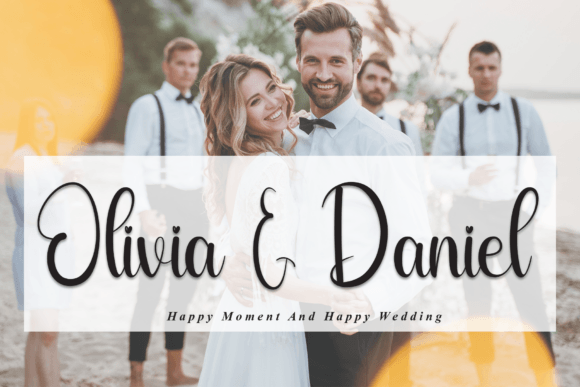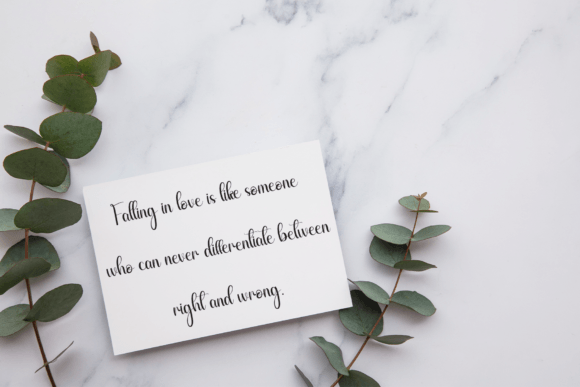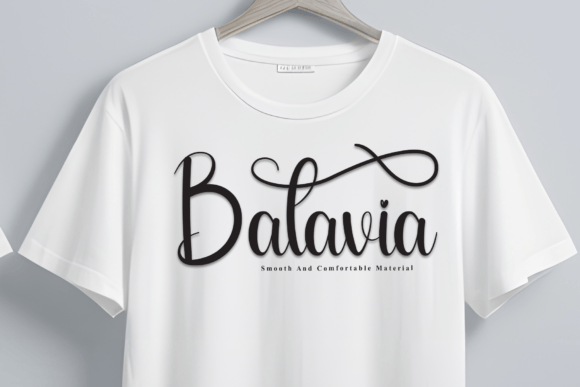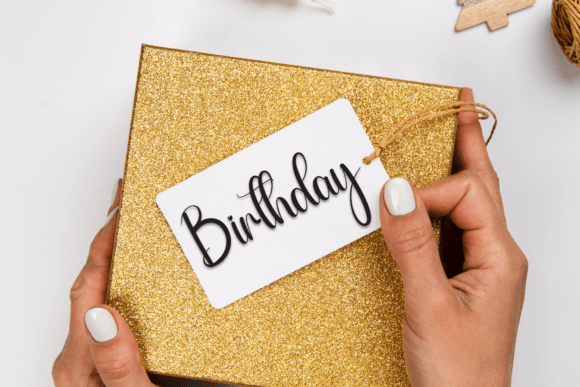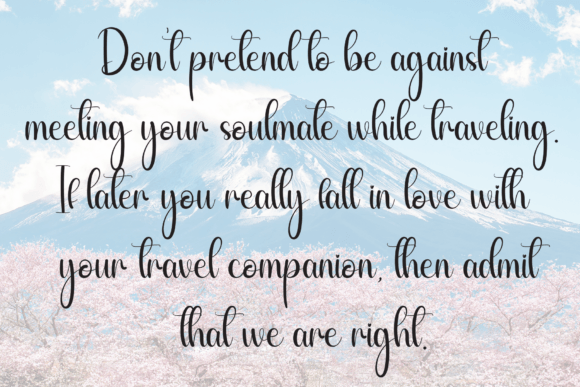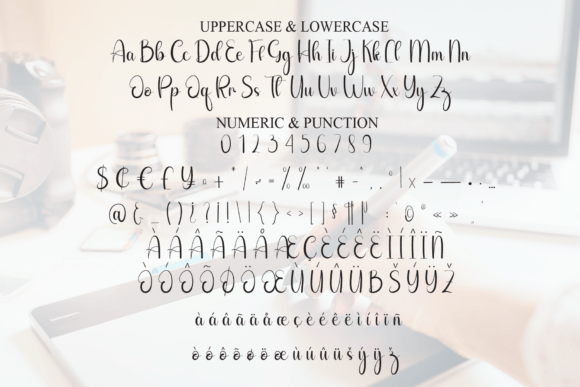
Discover the Whimsical Charm of Autography Font
Have you ever been in the middle of a design project, pouring your heart and soul into it, only to hit a roadblock when it comes to choosing the perfect font? I certainly have! It was during one of those moments, working on a wedding invitation design, that I stumbled upon the delightful Autography Font. Its sweet and amiable design instantly captured my attention, and I knew I had found the perfect fit. In this article, I’ll share my experience with this beautiful handwritten display font, its features, and how to make the most of it in your creative projects.
A Personal Touch for Your Creative Projects
Autography Font is a whimsically charming handwritten display font that adds a personal touch to any design. Its light-hearted yet elegant design makes it an ideal choice for crafting wedding invitations, cards, and any project that requires a burst of fun. This font is not just a collection of letters; it’s a creative tool that effortlessly combines charm, sophistication, and fun, transforming your design into a piece of art!
What I Love About Autography Font ✨
• ✅ Unique and eye-catching design that adds a personal touch to any project
• ✅ Perfect for wedding invitations, cards, and other creative projects that require a touch of elegance and whimsy
• ✅ Easy to read and understand, even in large and small sizes
• ✅ Highly versatile and can be used for a wide range of design projects
While Autography Font is an excellent choice for many design projects, there are a few things to keep in mind:
• 🤔 The font may not be suitable for very formal or professional projects, as it has a more playful and whimsical design.
• ⚠️ Some of the glyphs and special characters may not be immediately apparent, requiring a bit of exploration to discover.
The Designer Inspiration Behind Autography Font
Autography Font was designed with the intention of creating a unique and eye-catching handwritten display font that captures the essence of personal and creative expression. The designer aimed to create a font that is both elegant and playful, making it perfect for a wide range of design projects.
A: Autography Font is perfect for creative projects that require a touch of elegance and whimsy, such as wedding invitations, cards, and other design projects.
A: Currently, Autography Font is available in a single weight. However, the designer may release additional weights or styles in the future.